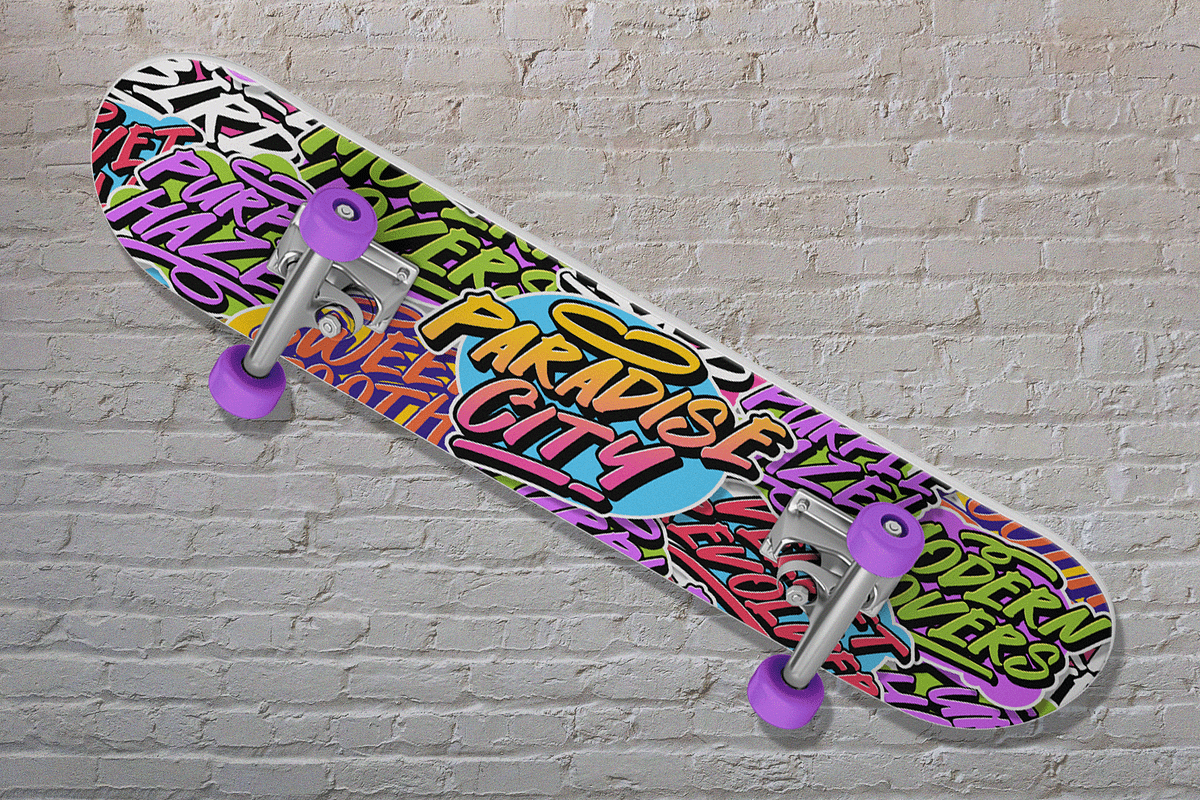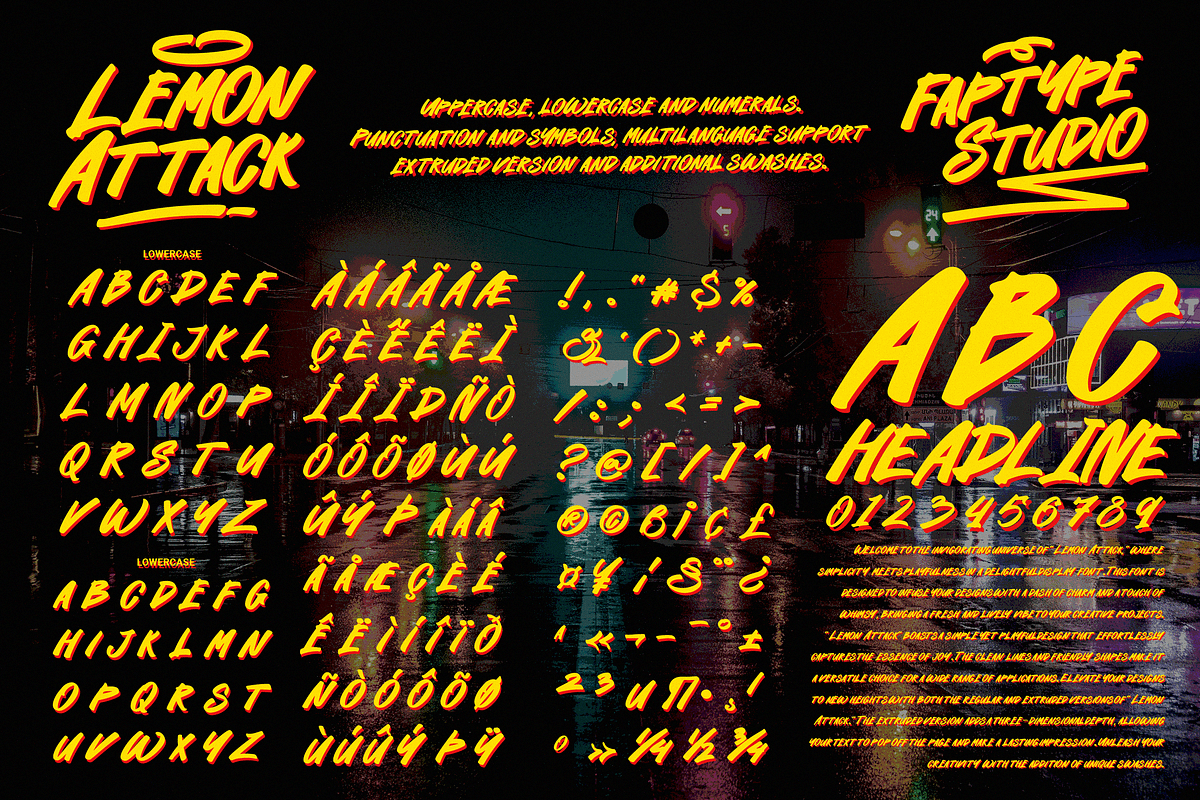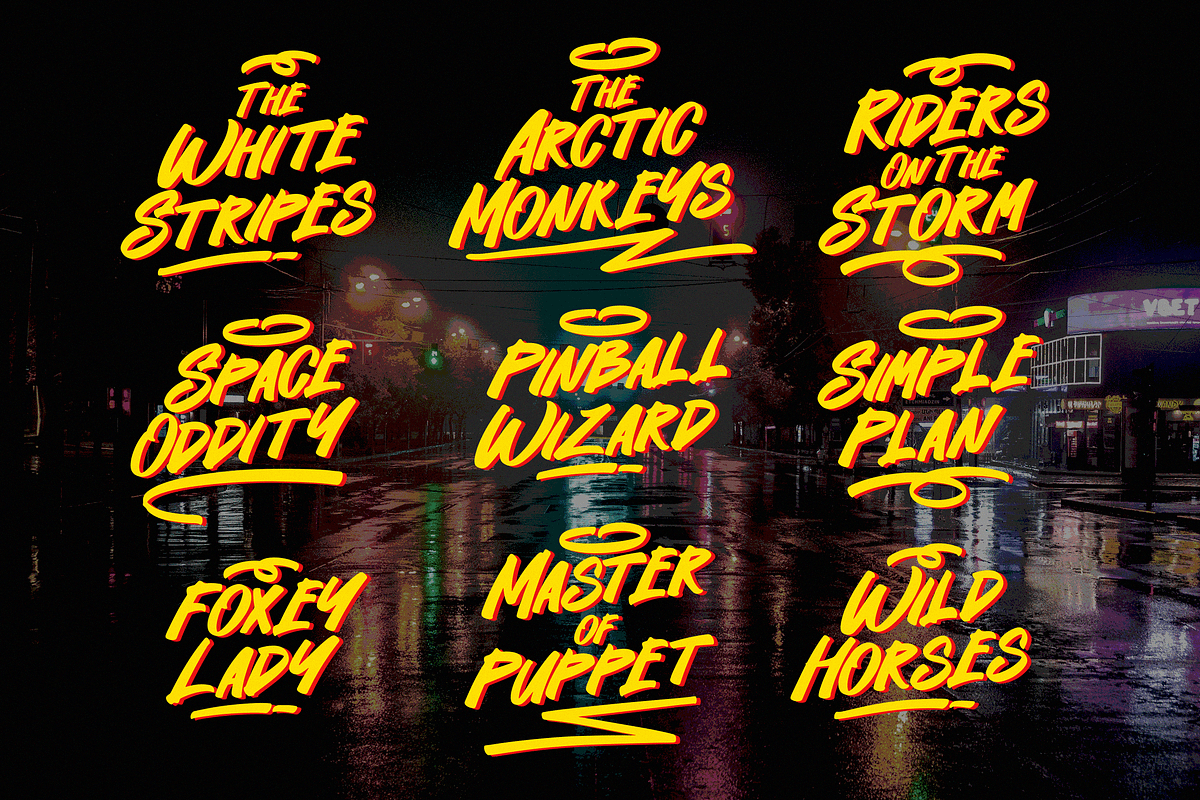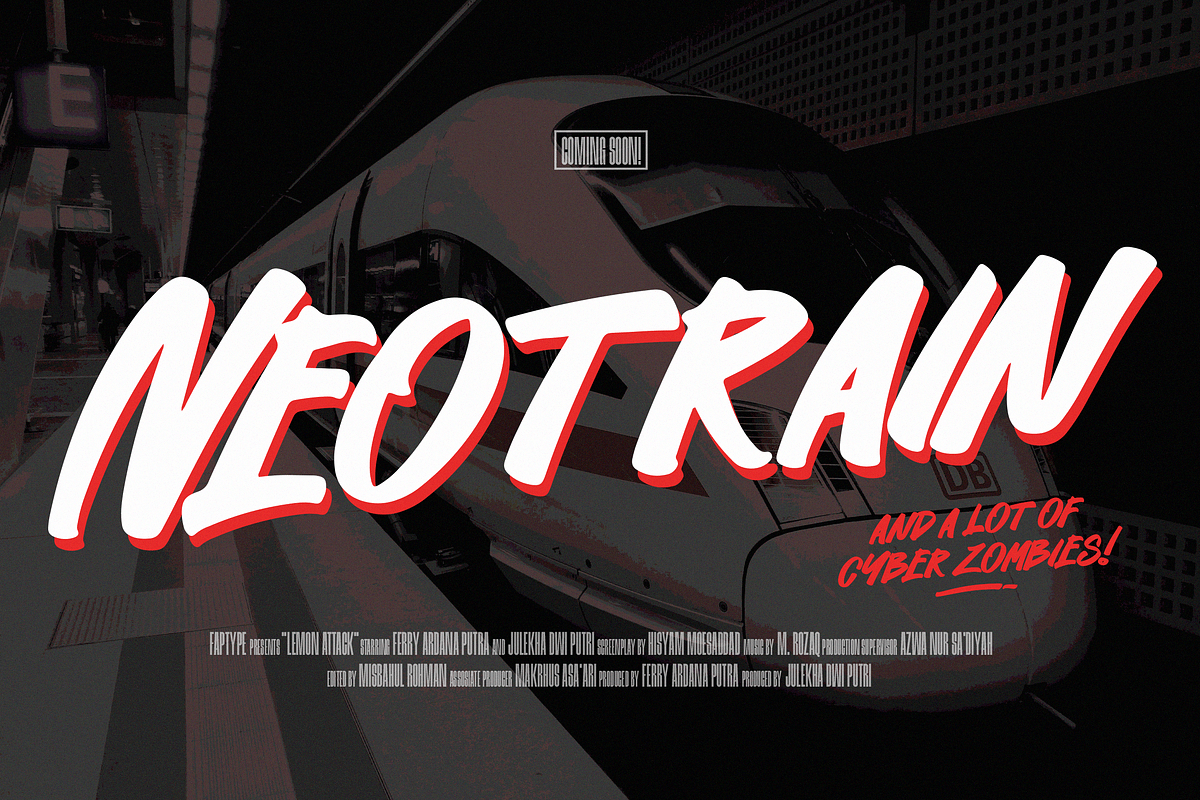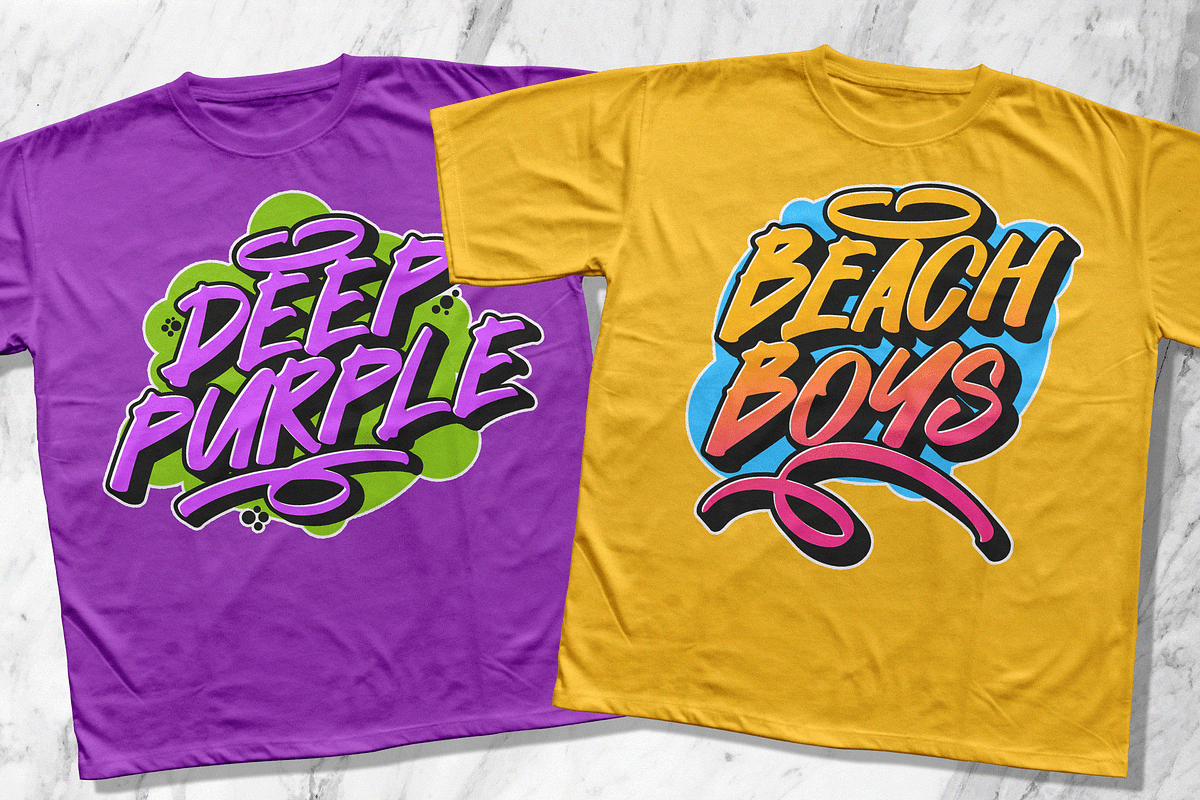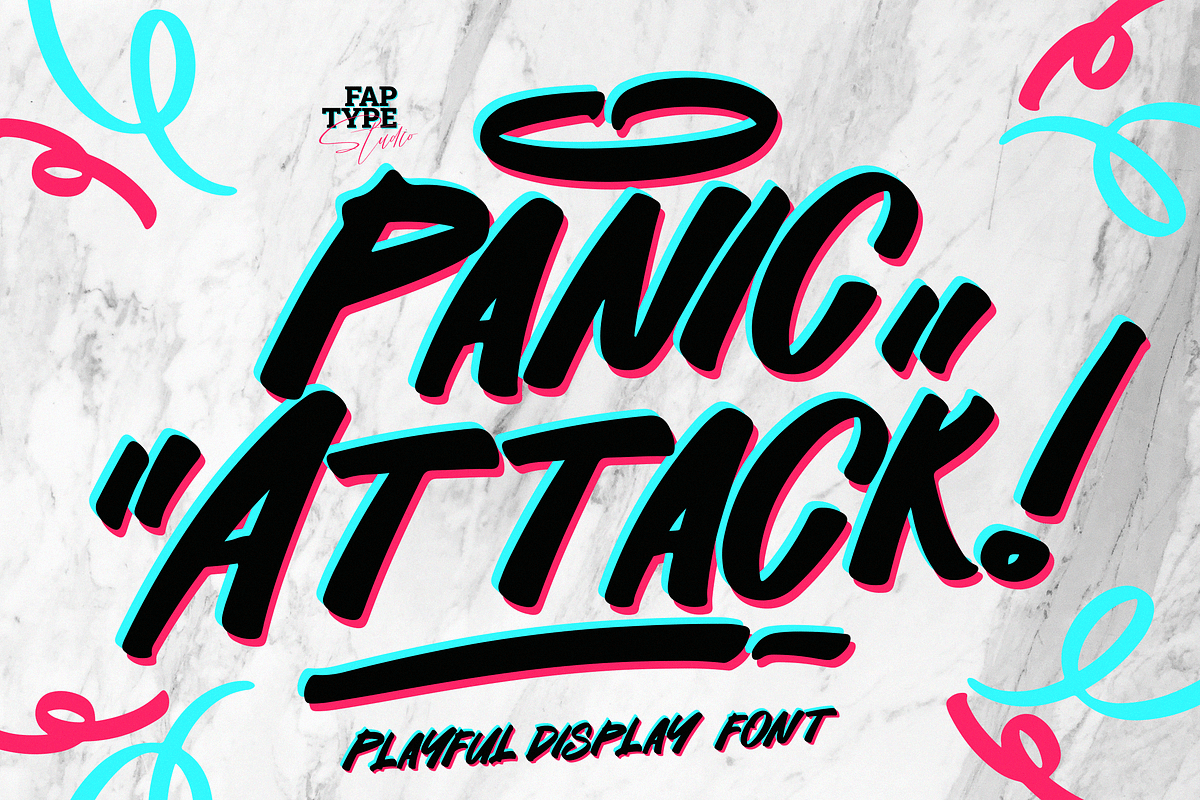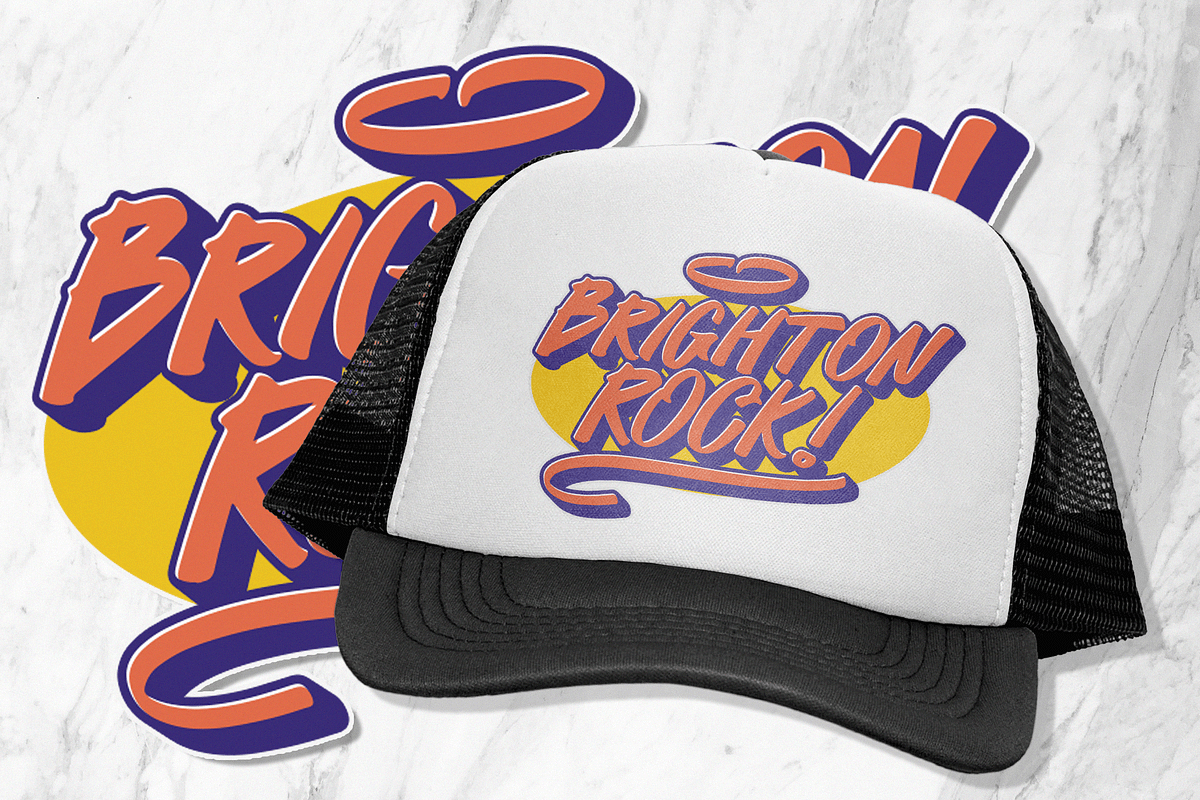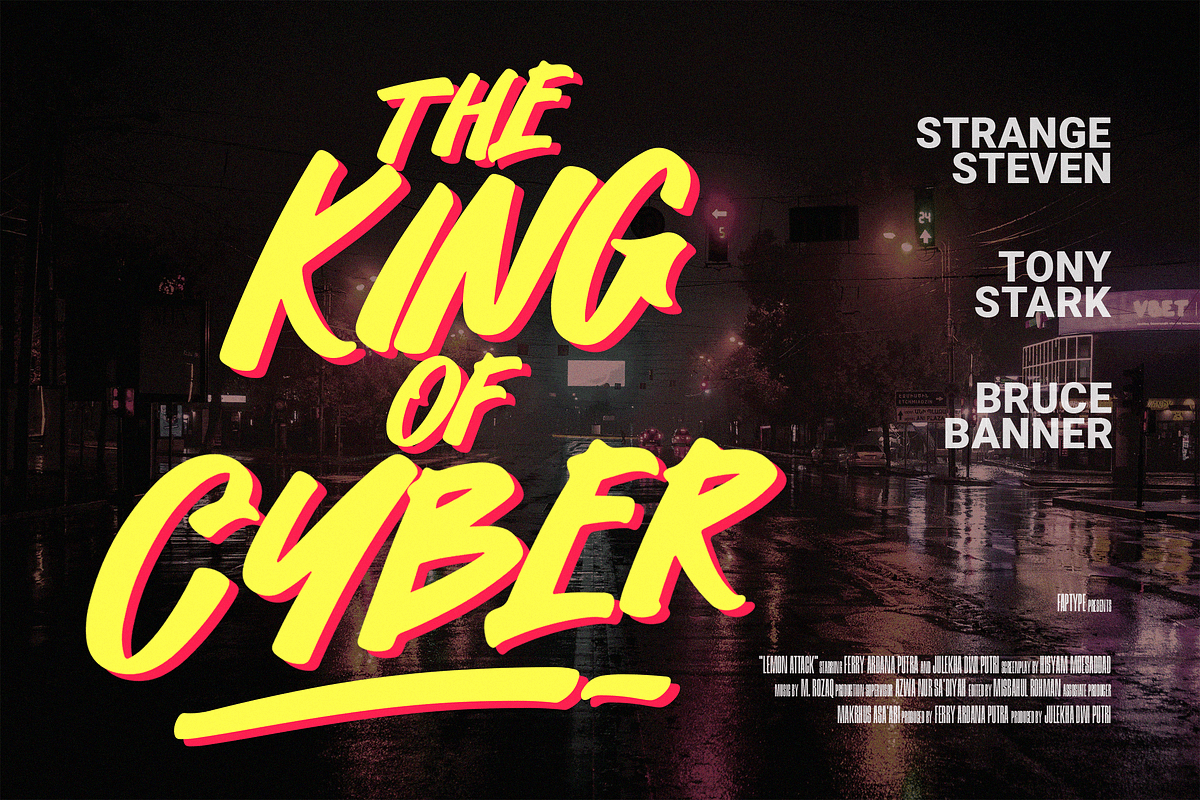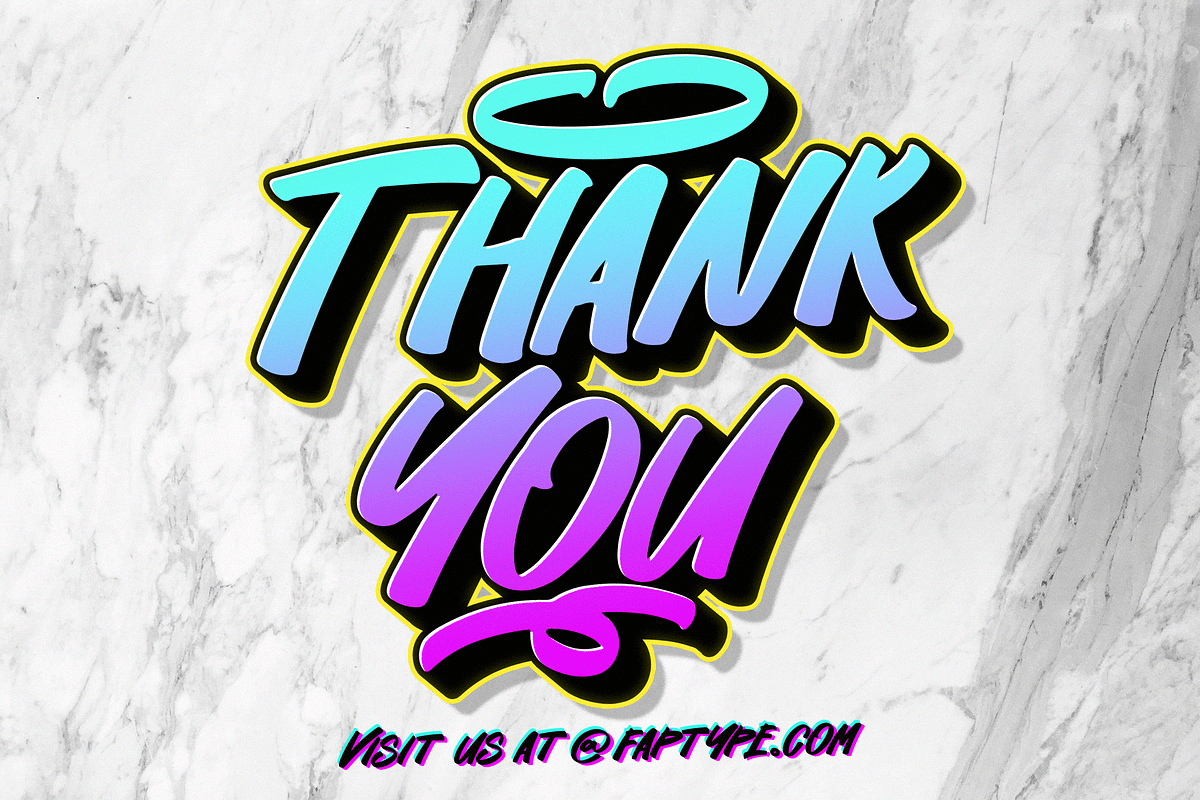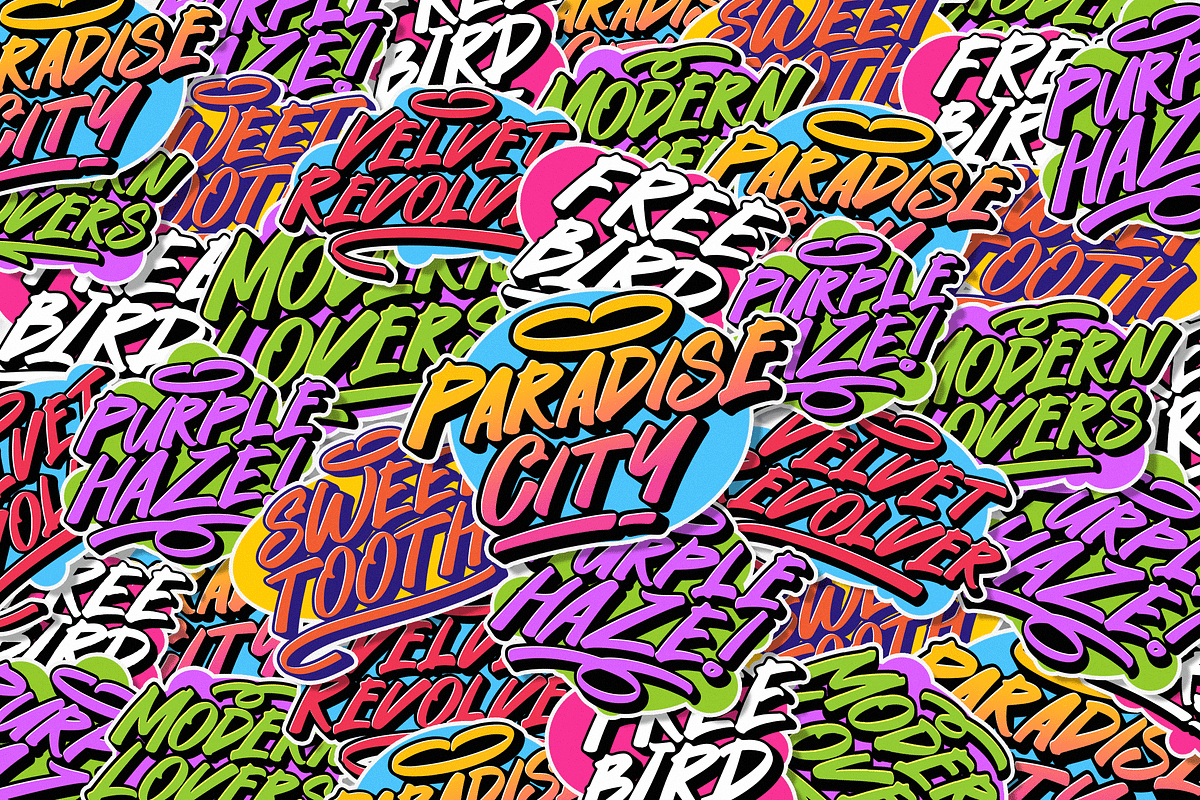
Panic Attack | Playful Sticker Font
Dive into the dynamic world of design with "Panic Attack," a font that seamlessly blends simplicity with playfulness. This unique display font is crafted to bring a touch of whimsy to your creative endeavors, making it a perfect choice for projects that demand both charm and versatility.
The heart of "Panic Attack" lies in its straightforward yet playful design. Each letter exudes a sense of fun and approachability, making it suitable for a wide range of creative applications.
Elevate your designs to new dimensions with "Panic Attack." The font offers both regular and extruded versions, providing the opportunity to add a captivating 3D effect. Your text will leap off the page, creating an impactful visual presence.
Unleash your creativity with the inclusion of unique swashes. These artistic embellishments add a personalized and whimsical touch to your typography, allowing you to infuse your designs with character and flair.
"Panic Attack" is the ideal font when you want to inject a sense of spontaneity and playfulness into your projects. Whether you're working on branding, packaging, or creative displays, this font effortlessly conveys a lively and engaging tone.
Versatile Applications:
- Brand Identity: Craft a memorable and approachable brand identity that resonates with a wide audience.
- Packaging Design: Infuse energy into product packaging, capturing the attention of consumers with the font's playful aesthetics.
- Children's Products: Create captivating visuals for children's books, toys, and other playful products, letting "Panic Attack" be the voice of fun.
- Event Invitations: Add a touch of excitement to your event invitations, setting the stage for an engaging experience.
- Social Media Graphics: Stand out on social platforms with posts and graphics that reflect the vibrant personality of "Panic Attack."
- Signage and Posters: Design eye-catching signage and posters that make a lasting impression, utilizing the 3D capabilities and unique swashes.
"Panic Attack" is not just a font; it's a creative tool that empowers you to bring a sense of playfulness to your designs. Embrace simplicity without compromising on style, and let "Panic Attack" be the font that transforms your projects into lively and memorable experiences.
Panic Attack features:
- A full set of uppercase
- Multilingual language support
- OpenType Features
- +298 Total Glyphs
- Up to 60 Alternate Characters